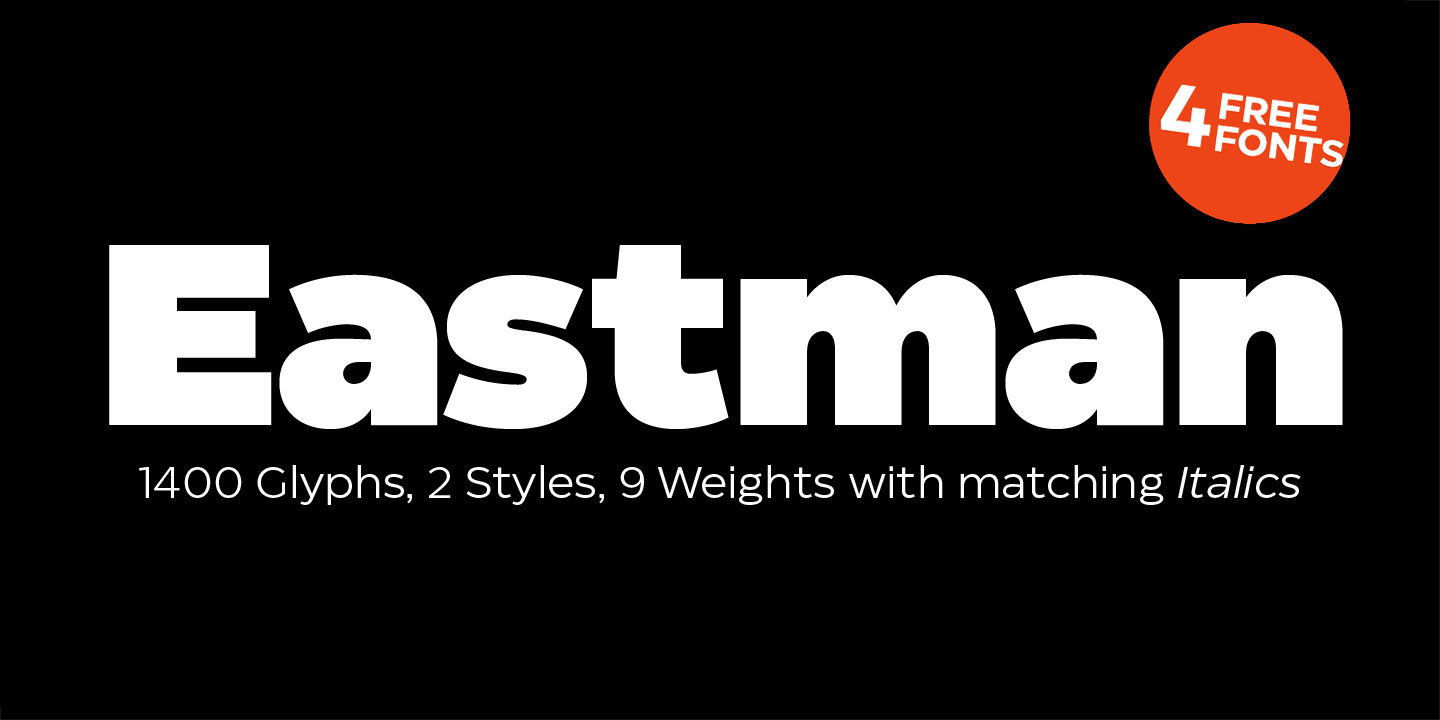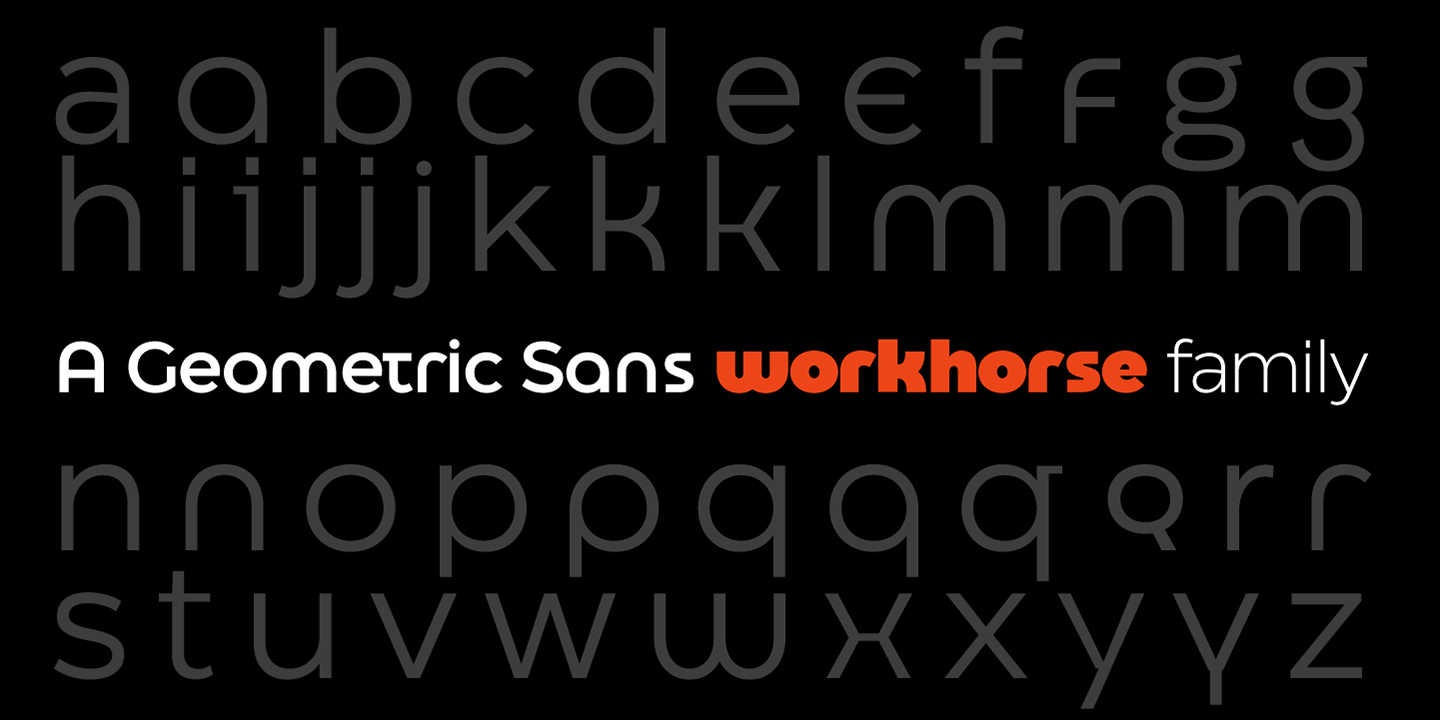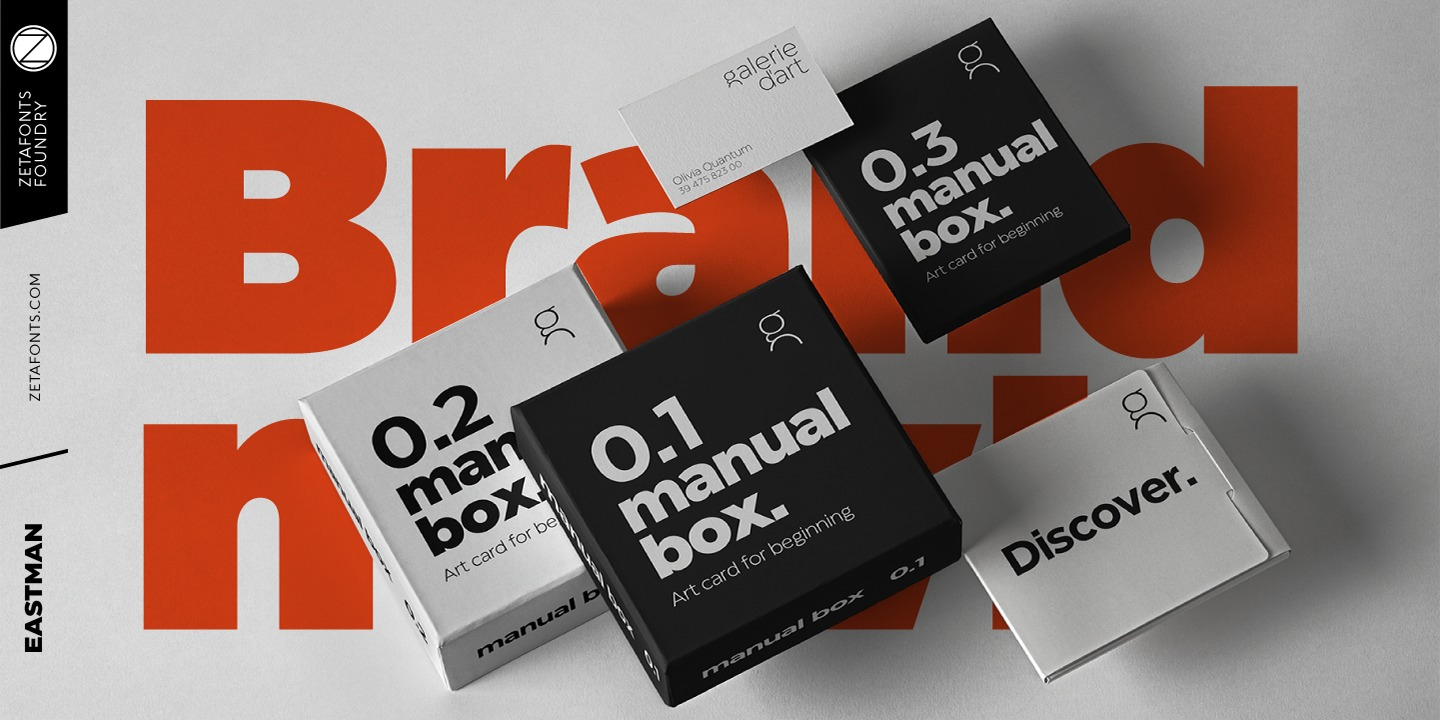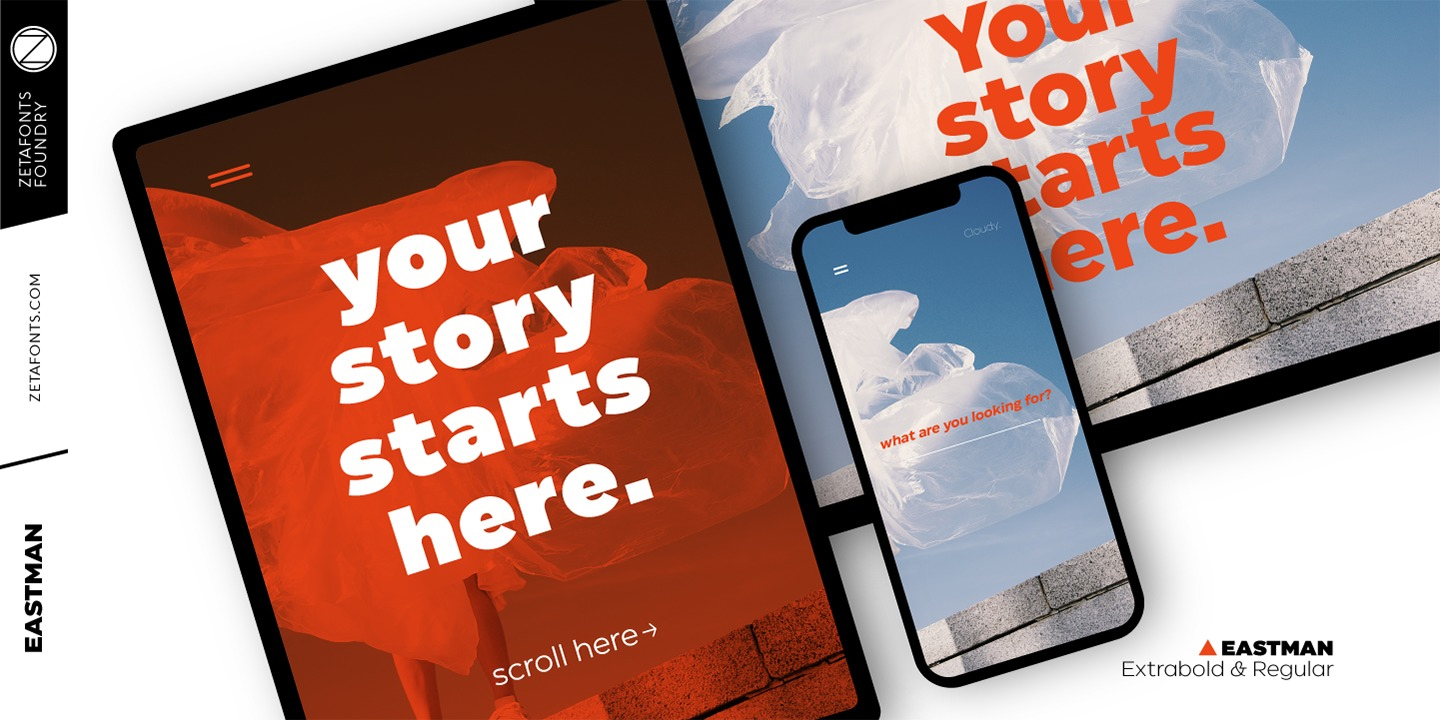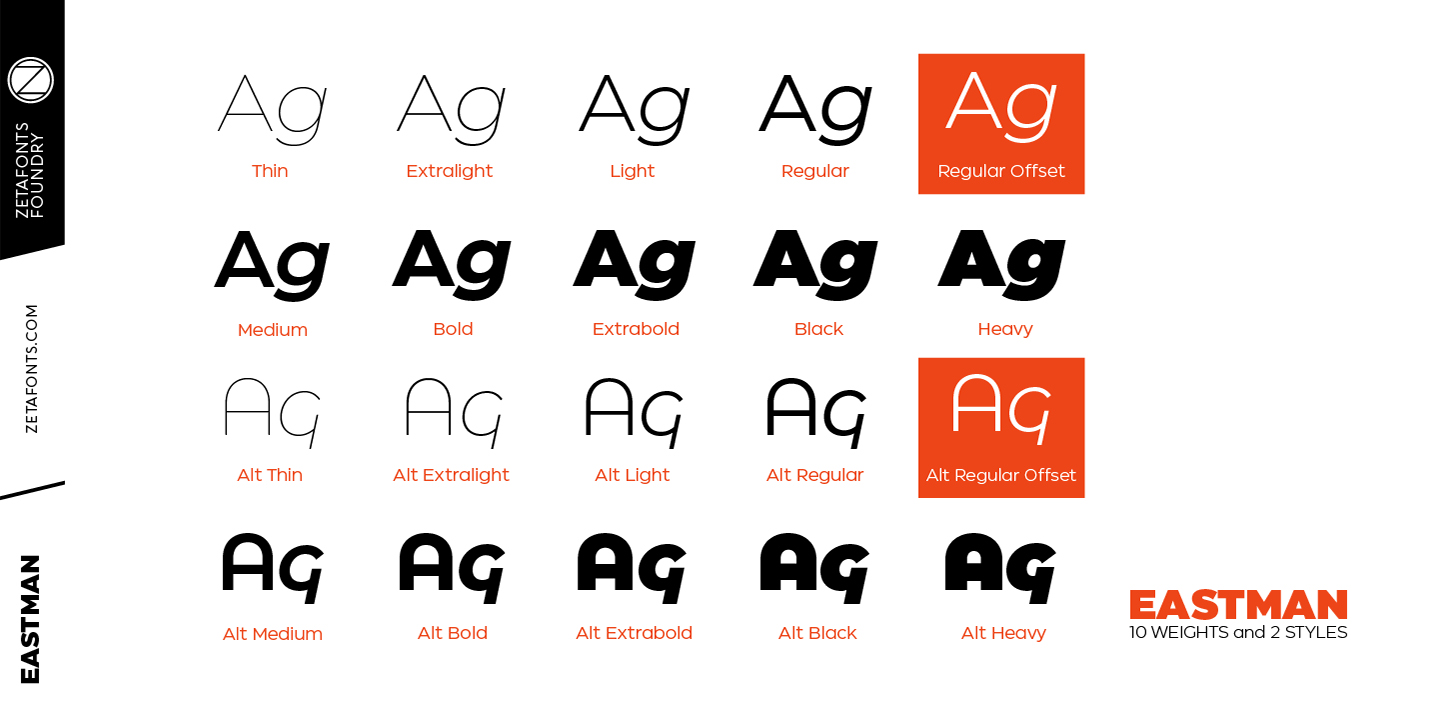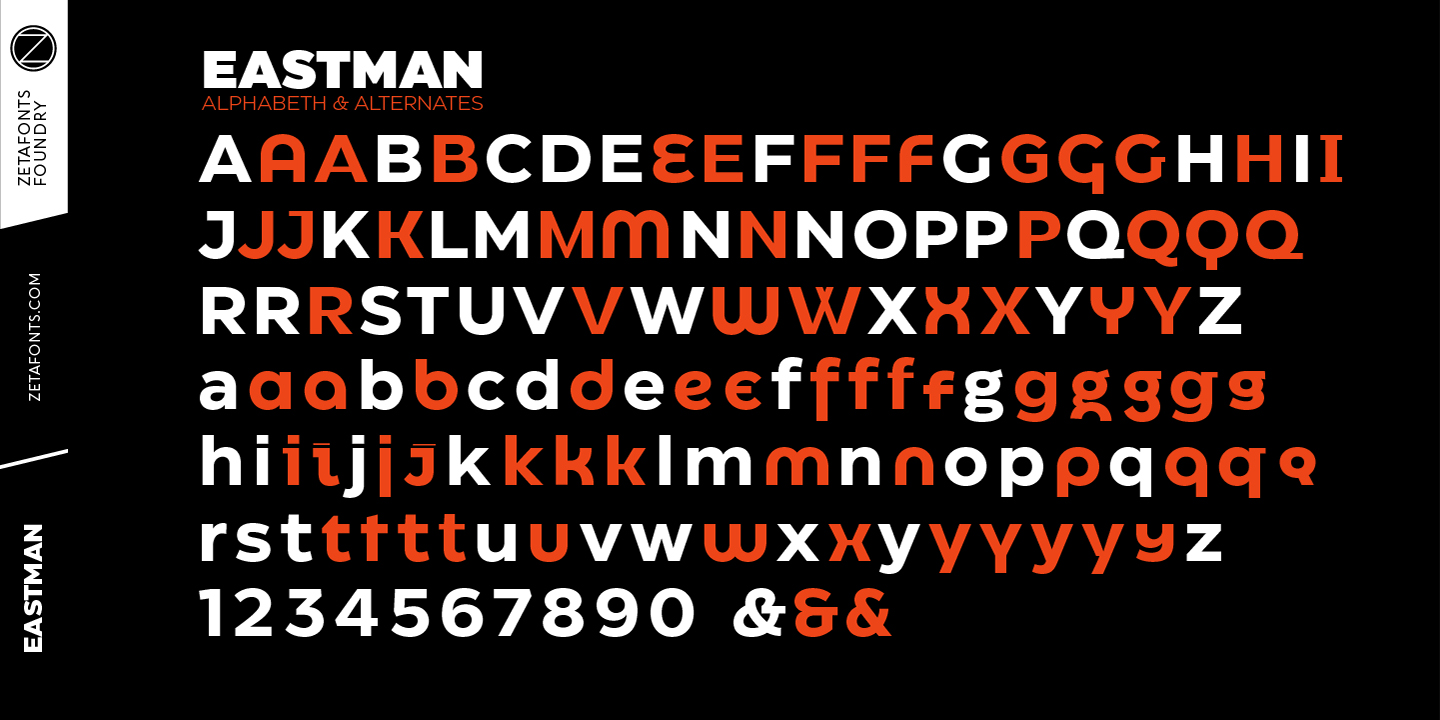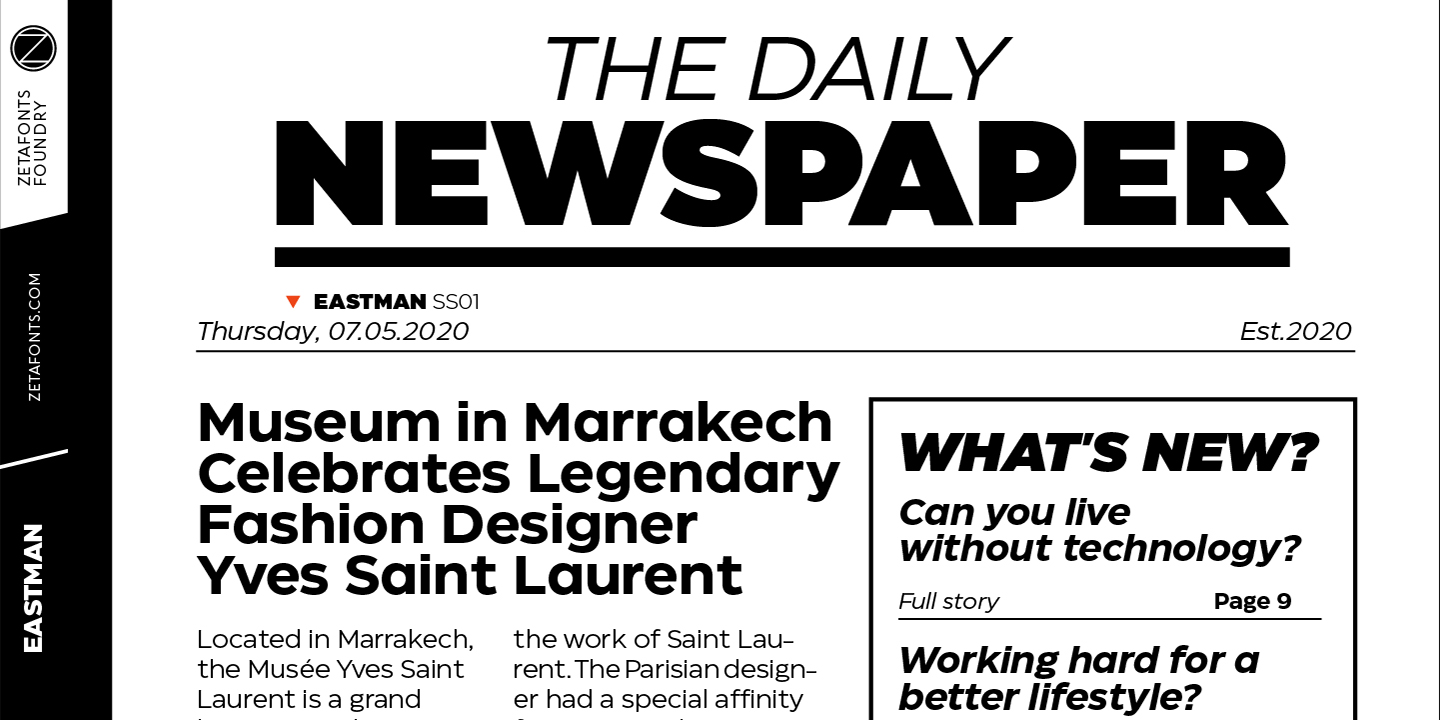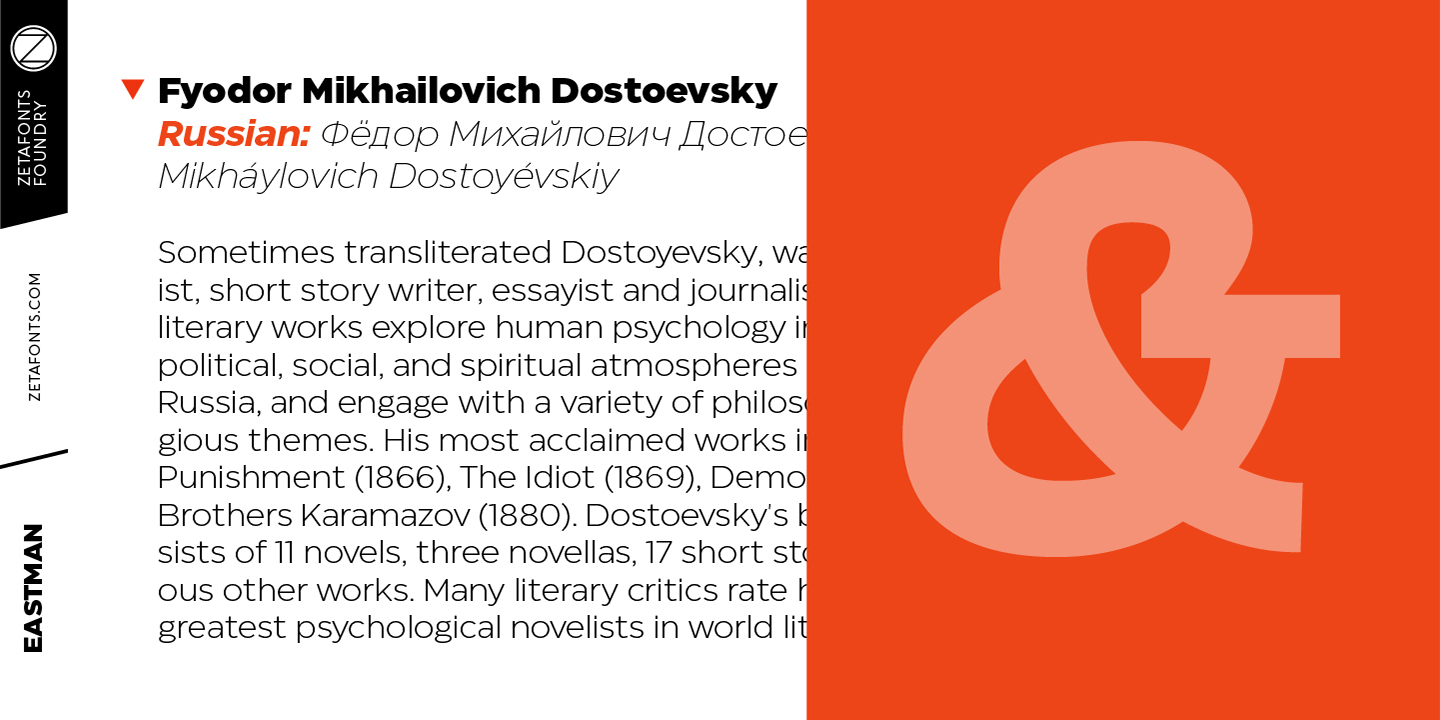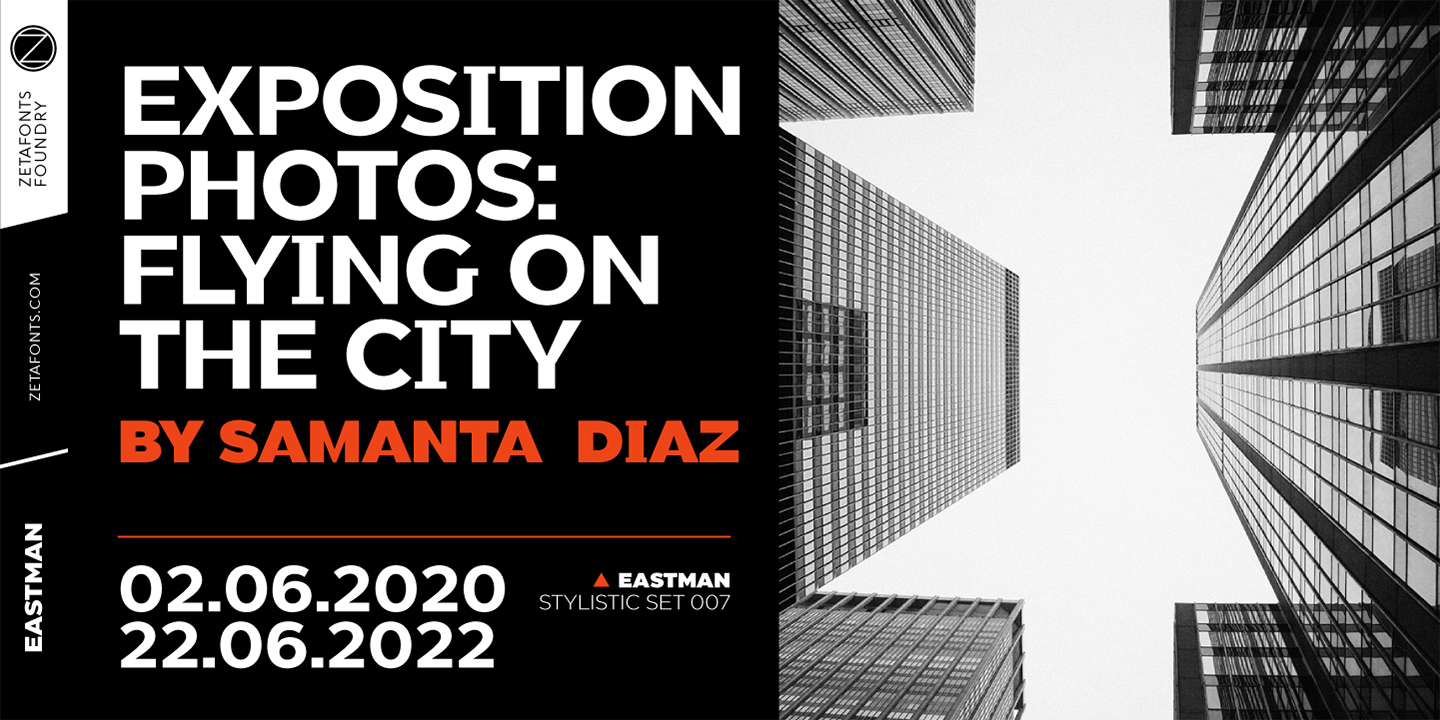
Eastman Font Family
Eastman was designed in 2020 for Zetafonts by Francesco Canovaro and Andrea Tartarelli with help from Solenn Bordeau. It was developed for maximum versatility both in displaying and using text, with a wide weight range and solid x-height monoline design making Eastman extremely legible on paper and on screen. Shapes, alt characters, and style sets let you refine your editorial and branding design by choosing unique variation letter shapes.
Eastman Font Family with an impressive 42 font count. Eastman excels in both body text, headings and punctuation and it’s your new pick for a modern design.